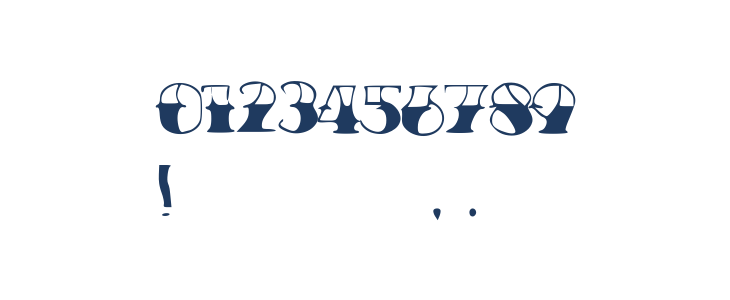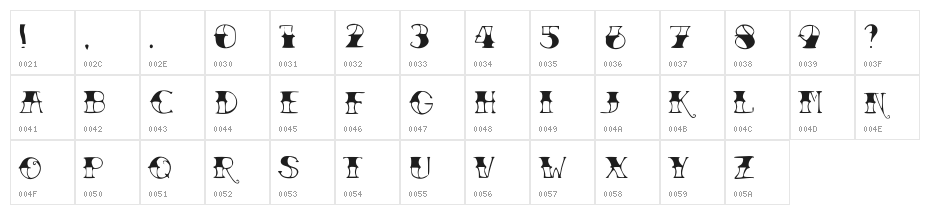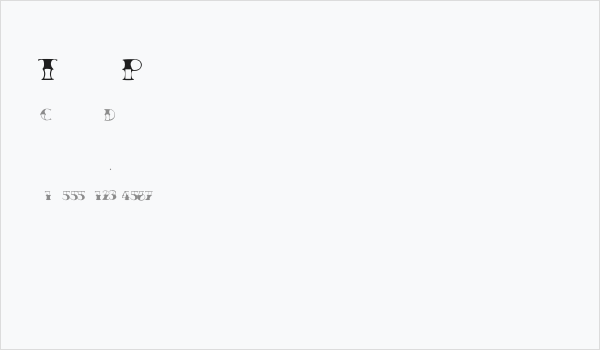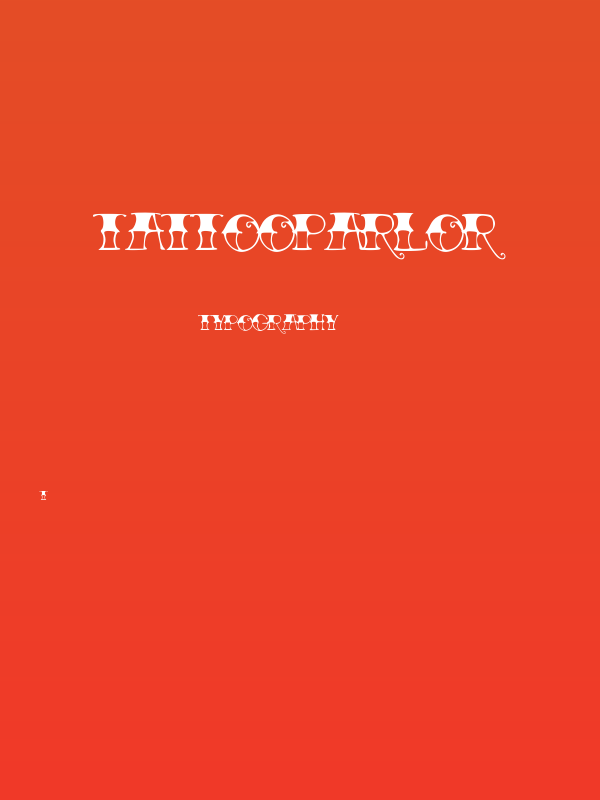
TattooParlor Font
TattooParlor Description
This font features a bold and decorative style with intricate detailing and unique flourishes. Each character is designed with a high contrast between thick and thin strokes, creating a dramatic and eye-catching appearance. The uppercase letters are particularly ornate, with some characters incorporating swirls and loops that add to the overall decorative aesthetic. The numbers and special characters maintain this elaborate style, ensuring consistency across the font. This font is ideal for projects that require a strong visual impact and a touch of elegance.
| Use Case | Logos, Headlines, Posters |
| Proposed Projects | Ideal for tattoo designs, posters, album covers, and branding that requires a bold and artistic touch. |